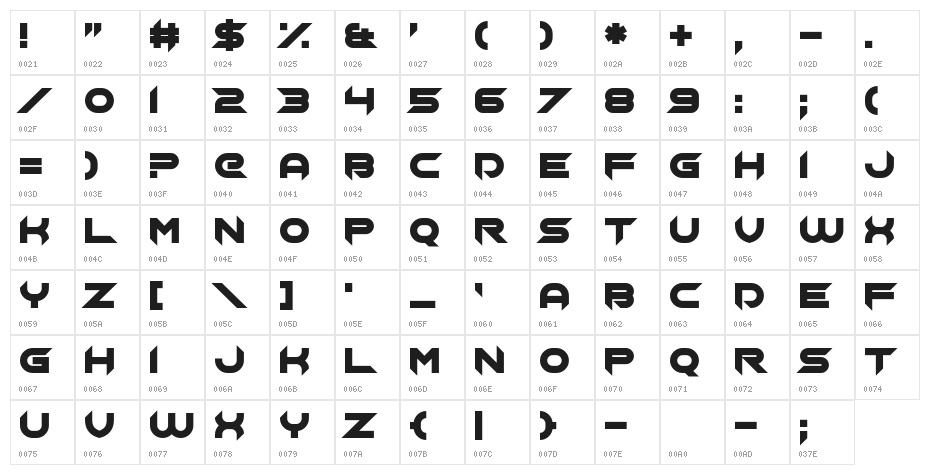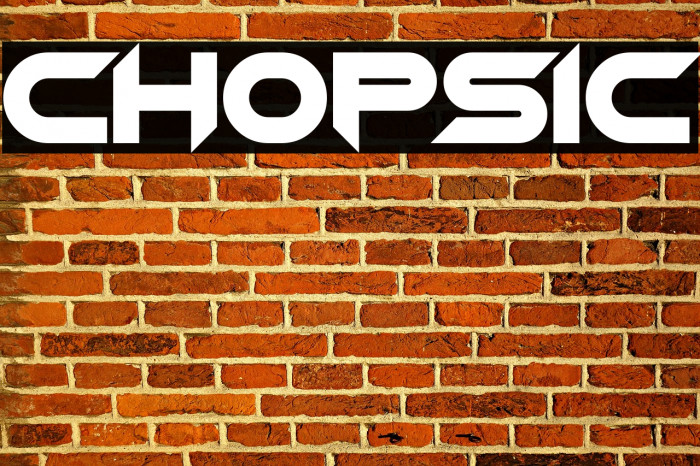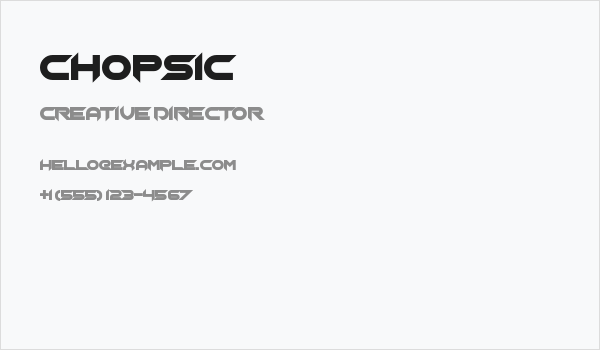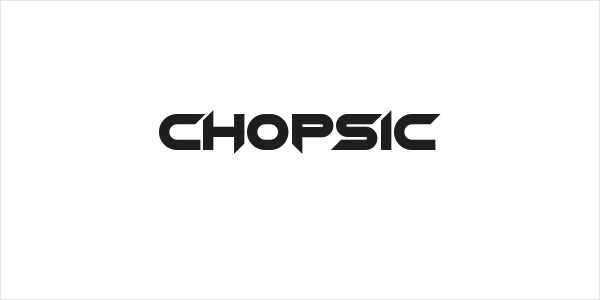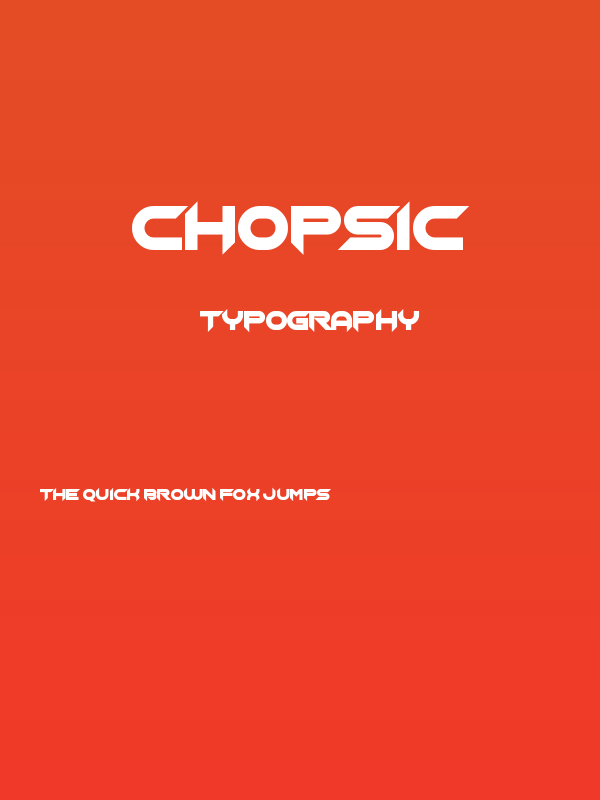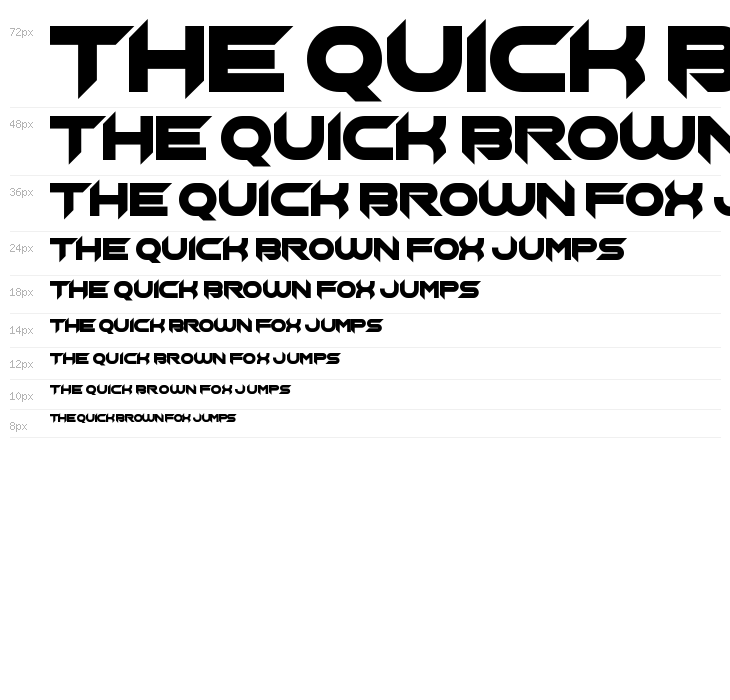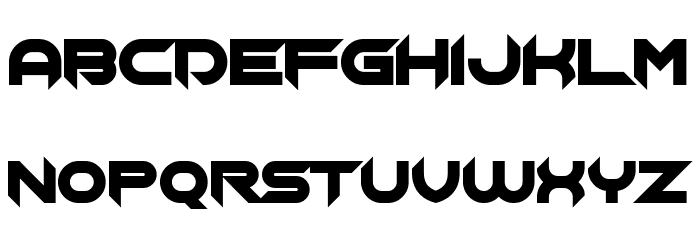
Chopsic Font
Chopsic Description
This font features a bold, geometric design with sharp angles and a futuristic aesthetic. The characters are constructed with a consistent thickness, giving them a strong and impactful presence. The angular cuts and unique shapes create a dynamic and edgy look, making it ideal for projects that require a modern and assertive style. The uppercase and lowercase letters maintain a uniform design, while the numerals and special characters complement the overall theme with their distinctive forms.